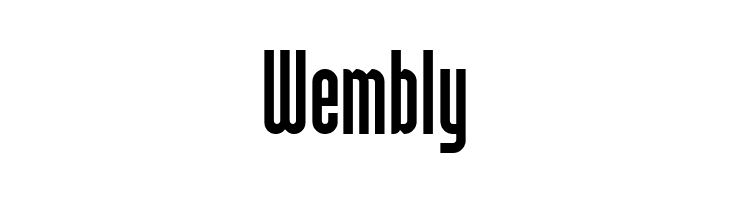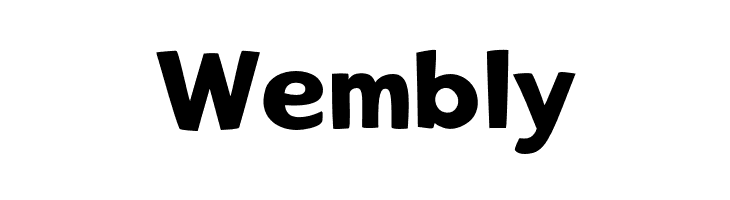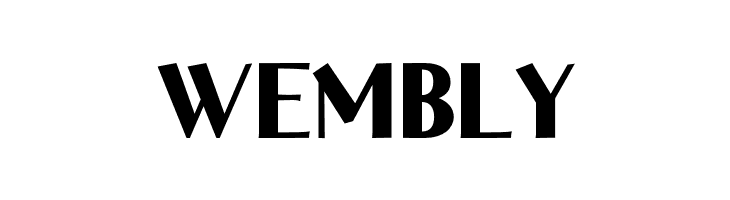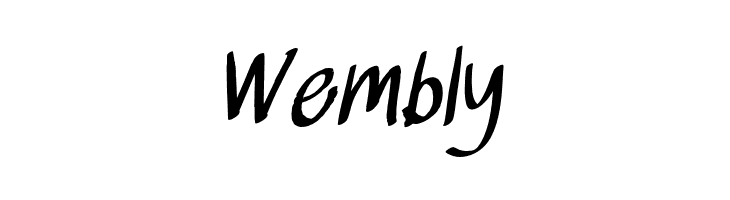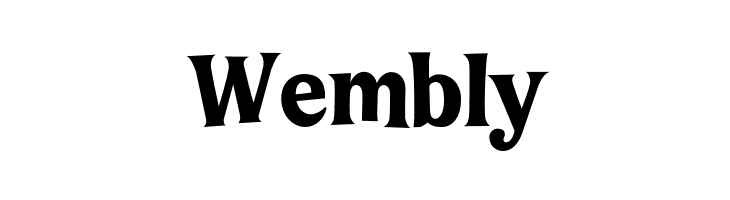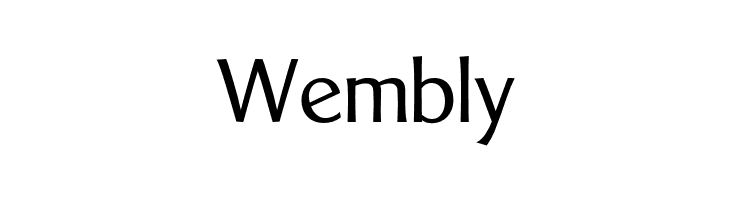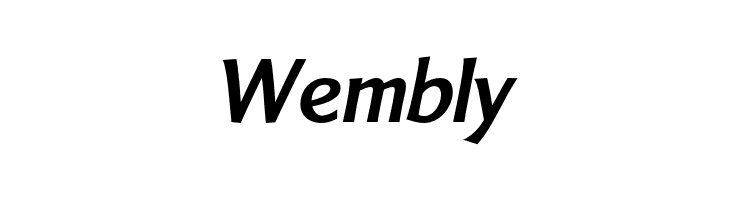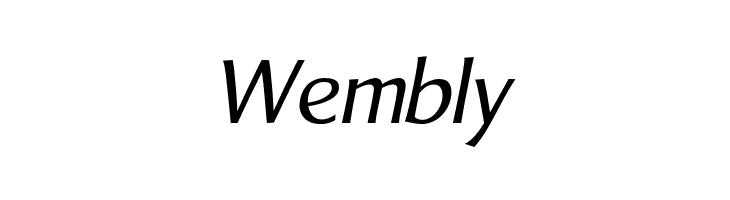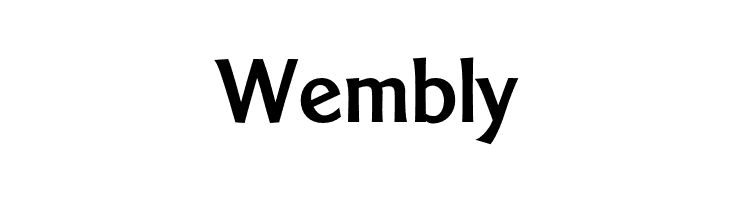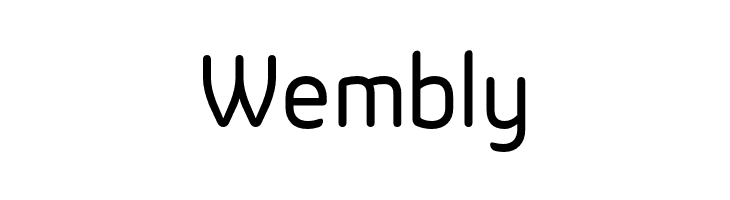
• LOVE IS BLIND
A bold, geometric font with strong circular and triangular elements.
• LOVE IS BLIND
• Love Me Valentines
( Fonts by Chequered Ink )
• Love Sequel
A bold, energetic script font with sweeping strokes and a lively, handwritten style.
• LOVE til KILLED
( Fonts by Andrew Hart - dirt2.com )
• Love Ya Like A Sister
( Fonts by Kimberly Geswein - kimberlygeswein.com )
A playful, hand-drawn font with a sketch-like, textured appearance.
• Love Ya Like A Sister Solid
( Fonts by Kimberly Geswein - kimberlygeswein.com )
A playful, hand-drawn font with bold, irregular strokes and a casual vibe.
• Love You Heaps
A playful, informal handwritten font with dynamic strokes and a whimsical appearance.
• Lovely Excuse
A bold, expressive brush script font with dynamic strokes and artistic flair.
• Lovers Quarrel
An elegant script font with intricate swirls and flowing strokes.
• Loves DevineUS
( Ms. DeVine - www.brushstock.com )
A playful, heart-themed decorative dingbat set.
• LowCase
A playful and whimsical handwritten font with artistic flair.
• lowerkase
A decorative font with organic, flowing shapes and intricate details.
• LowerSide
A rough, hand-drawn font with an artistic, graffiti-like style.
• Loxley
( Roger White - web.archive.org/web/20120416090521/www.rogersfonts.org.uk/ )
A bold, condensed, and modern geometric font with strong vertical emphasis.
• LRT Chickenhawk
• LRT Oksana
( Lauren Thompson - www.nymfont.com/ )
A sleek, modern font with clean lines and geometric shapes, perfect for elegant designs.
• LRT Oksana Bold
( Lauren Thompson - www.nymfont.com/ )
A bold, geometric font with a modern and clean design.